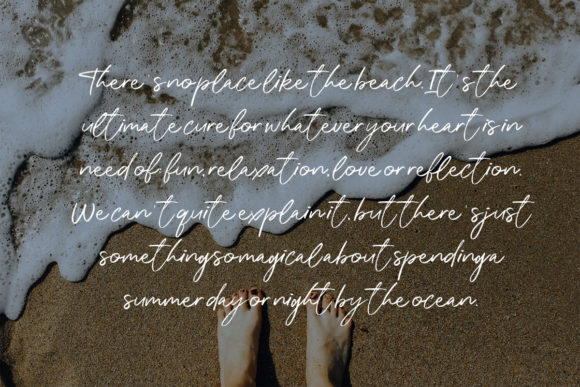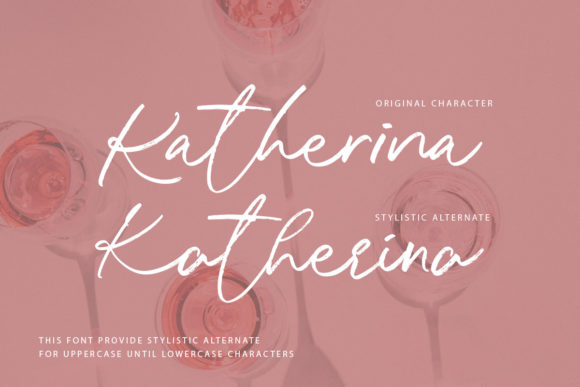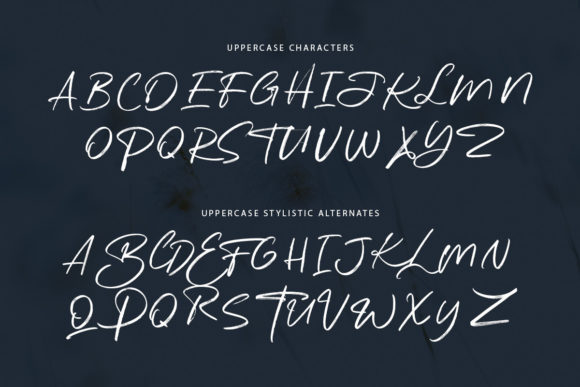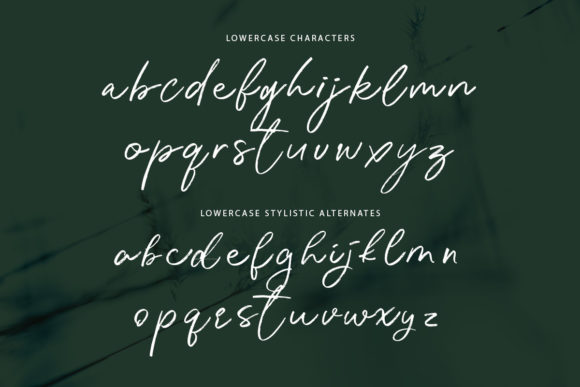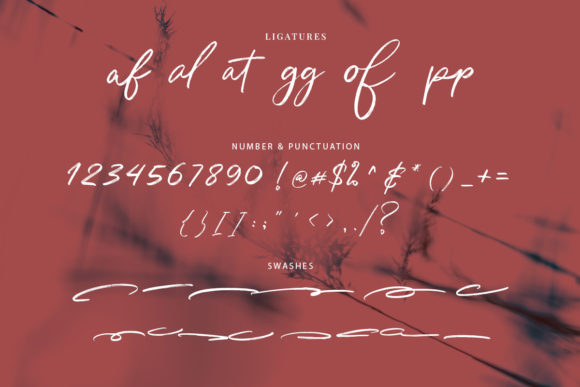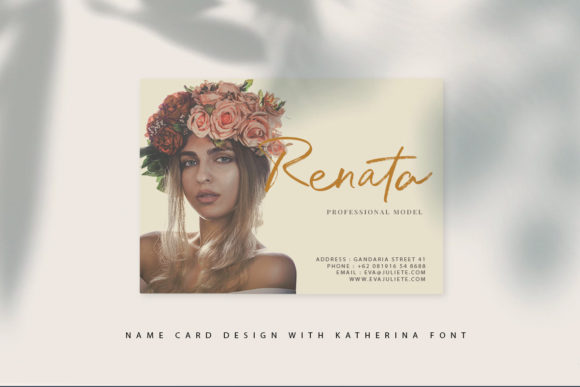
Introduction to Katherina Font
Have you ever found yourself staring at a blank canvas, desperately searching for the perfect font to bring your creative vision to life? It’s a moment we’ve all been there – the blank page staring back at us, taunting us with its emptiness. But what if I told you that there’s a font that can break through the noise and make your design stand out? Enter the luxurious Katherina Font, a stunning handwritten font that’s sure to leave a lasting impression.
As a valuable resource for designers, the Katherina Font is a game-changer for any creative project. Its high-quality, brush-textured design makes it perfect for use on colorful backgrounds, adding a touch of sophistication to even the most minimalist of designs. And the best part? It’s available for free download, making it an accessible design resource for designers of all levels.
Key Features of Katherina Font
- High-quality, elegant design perfect for creative projects, including invitations, posters, and more.
- Designed with a unique, intricate style that sets it apart from other fonts, adding a touch of sophistication to any creative project.
Honest Review: Katherina Font
What works well: ✨ The Katherina Font has a beautiful, elegant design that makes it perfect for projects that require a touch of sophistication. The font is available in a range of weights, from light to bold, which gives designers plenty of flexibility when it comes to styling their text. The font also features a transparent background, making it easy to use as a design resource in various creative projects.
What doesn’t work well: ⚠️ One limitation of the Katherina Font is that it’s a single font, which means designers won’t have access to a comprehensive font family. Additionally, the font may not be suitable for projects that require a more modern or edgy look.
Overall impression: I’m impressed with the Katherina Font, and I think it’s a great addition to any designer’s toolkit. While it may have some limitations, its high-quality design and flexibility make it a valuable resource for creative projects.
Katherina Font is a high-quality design resource perfect for creative projects. With a transparent background, this font is ideal for various applications.
The Great Vibes Font is a modern script font that is perfect for designers who want to add a touch of creativity to their projects. It features a high-quality design and is available for free download, making it a great design resource for designers who want to stay within their budget. When to use: social media graphics, blog posts, or any project that requires a fun and playful look. Comparison to Katherina Font: While Katherina Font has a more vintage feel, Great Vibes Font is more modern and trendy, making it suitable for projects that require a fresh and youthful look.